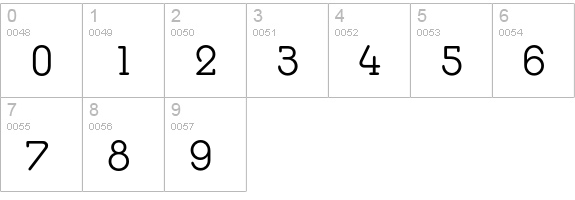
Media-Light Font Details
Media-Light is a refined, elegant variant in the Media typeface family \xE2\x80\x94 well suited to elegant body text, refined sub-headings, and luxury branding.
Media-Light is a sleek and modern font that exudes sophistication and elegance. With its clean lines and contemporary style, this versatile typeface is perfect for a wide range of design projects. Whether you're creating a professional website, designing a sleek logo, or crafting eye-catching marketing materials, Media-Light is sure to make a bold statement. Best of all, Media-Light is completely free to download! You can easily access this stylish font at FontsMarket.com, where you can find a wide selection of high-quality fonts for all your design needs. Don't miss out on the opportunity to enhance your projects with the timeless beauty of Media-Light. Download it today and let your creativity shine!